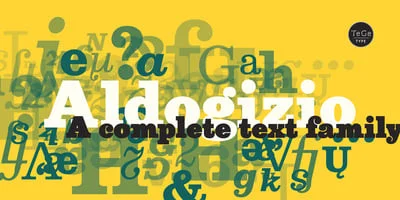
Aldogizio Font
Aldogizio Font is perfect for branding projects, logo design, packaging design, magazine layouts, poster creation, social media graphics, website headers, book covers, invitation cards, and creative advertising campaigns.
What makes Aldogizio Font exciting is its unique blend of modern elegance and timeless sophistication. This versatile typeface captures attention with its distinctive character variations and smooth letter transitions, making it an ideal choice for designers who want to create memorable visual identities. The font's carefully crafted curves and balanced proportions ensure excellent readability across both digital and print media.
The Aldogizio Font family includes multiple weights and styles, featuring regular, bold, italic, and condensed variations. Each style maintains the font's signature aesthetic while offering flexibility for different design requirements. The complete family provides designers with comprehensive options for creating cohesive typographic hierarchies in their projects.
Whether you're working on corporate branding, editorial design, or creative advertising, Aldogizio Font delivers exceptional quality and professional results. Its contemporary appeal combined with classic design principles makes it suitable for luxury brands, fashion magazines, high-end product packaging, and sophisticated web design projects. The font's versatility extends to both headline and body text applications, ensuring consistent visual appeal throughout your design work.